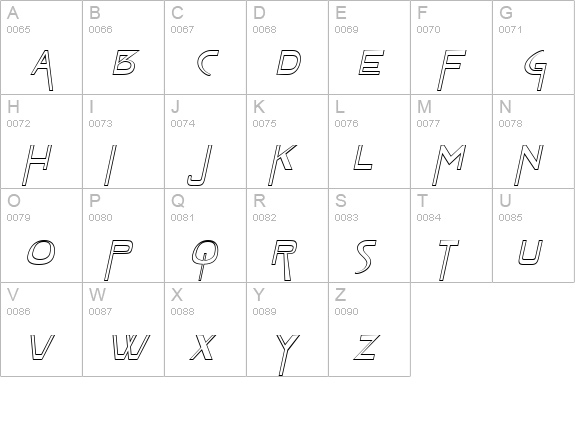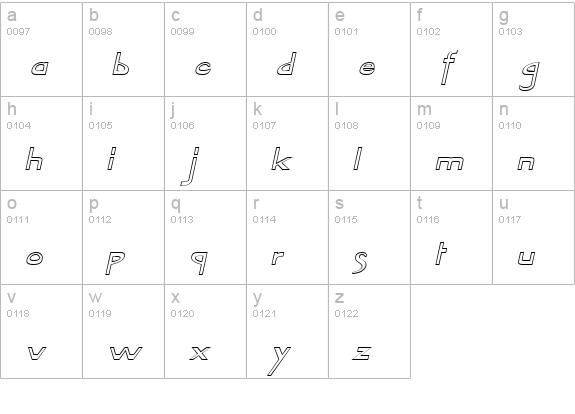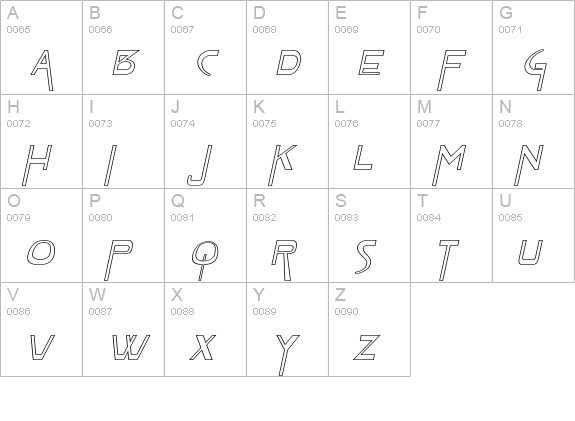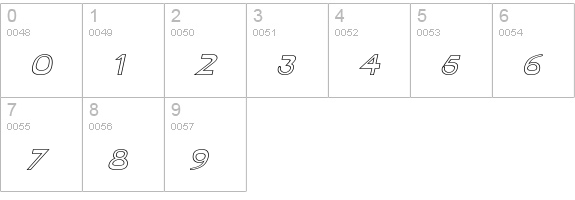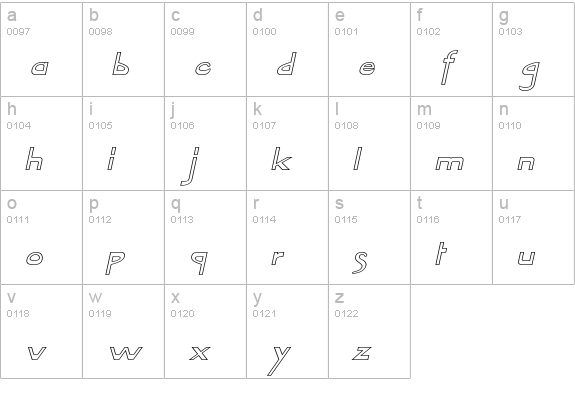
TabletHollowExtended Italic Font Details
TabletHollowExtended Italic is a distinctive, italic variant in the TabletHollowExtended typeface family \xE2\x80\x94 well suited to design and typography projects.
TabletHollowExtended Italic font is a stylish and modern typeface that adds a touch of elegance and sophistication to any design project. Its sleek lines and delicate curves create a sense of fluidity and grace, making it perfect for both digital and print applications. This font showcases a unique combination of sophistication and creativity, making it a versatile choice for a wide range of projects. Whether you're designing a logo, creating a website, or working on a branding campaign, TabletHollowExtended Italic font will help you stand out from the crowd. One of the best features of TabletHollowExtended Italic font is that it is available for free download at FontsMarket.com. This means that you can easily access and use this incredible font without any cost. FontsMarket.com is a reliable and trusted source for high-quality fonts, making it the perfect place to find and download TabletHollowExtended Italic font. The extended italic version of TabletHollow font adds a unique twist to the classic design, giving it a contemporary and edgy look. Its slanted and elongated letters create a sense of movement and dynamism, adding a touch of excitement to your designs. With its wide range of characters, including uppercase and lowercase letters, numbers, and punctuation marks, TabletHollowExtended Italic font provides you with all the tools you need to bring your creative vision to life. Its legibility and versatility make it suitable for a variety of design projects, from headlines and titles to body text and captions. Whether you're a professional designer or a novice enthusiast, TabletHollowExtended Italic font is a must-have addition to your font collection. Its sleek and modern aesthetic, combined with its free availability at FontsMarket.com, makes it a valuable resource for any creative project. Download TabletHollowExtended Italic font today and let your designs shine with elegance and style.